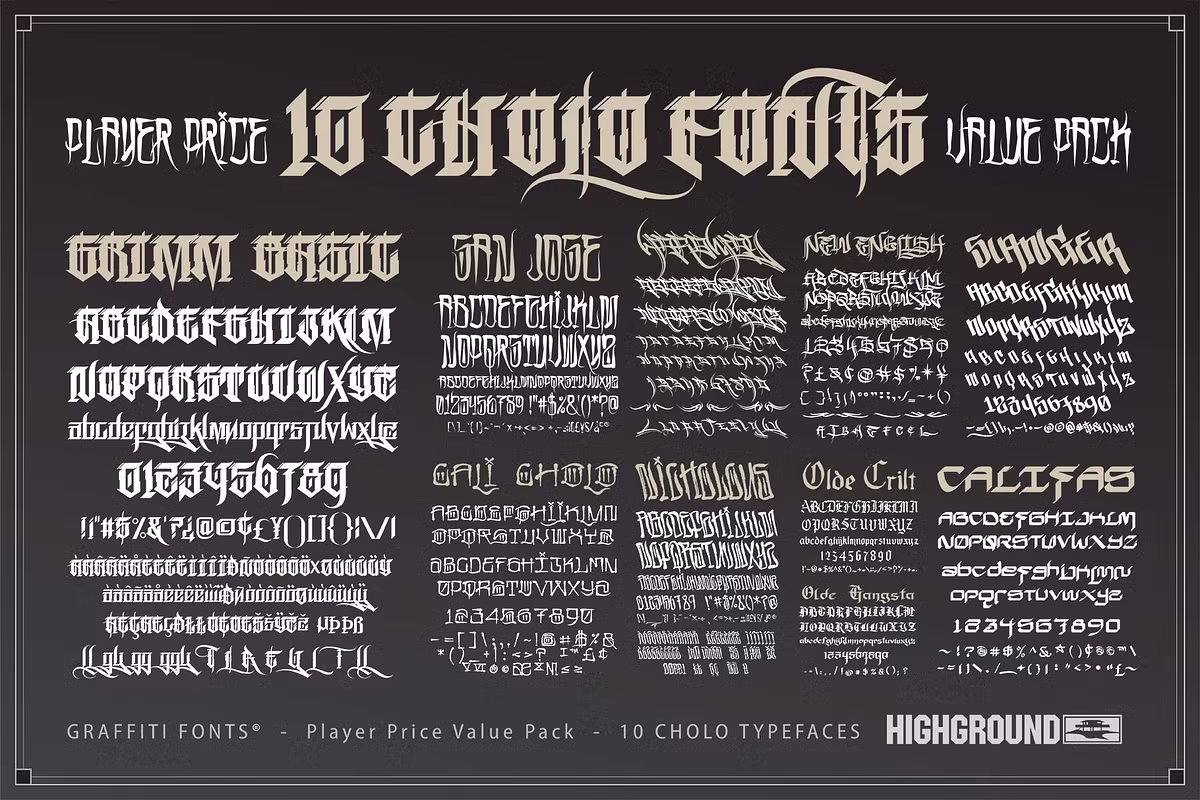
Player Price Cholo Font Set Free Download is a bold and edgy display font set inspired by graffiti, urban art, and street culture. Featuring strong, angular letterforms and dynamic shapes, this font set is perfect for creating impactful designs for streetwear branding, album covers, posters, and any creative project that demands a rebellious, high-energy look.
The Player Price Cholo Font Set includes a range of complementary styles, offering versatility for projects that need both power and style. Whether you're working on logos, merchandise, or promotional materials, this set captures the essence of bold expression and urban flair.